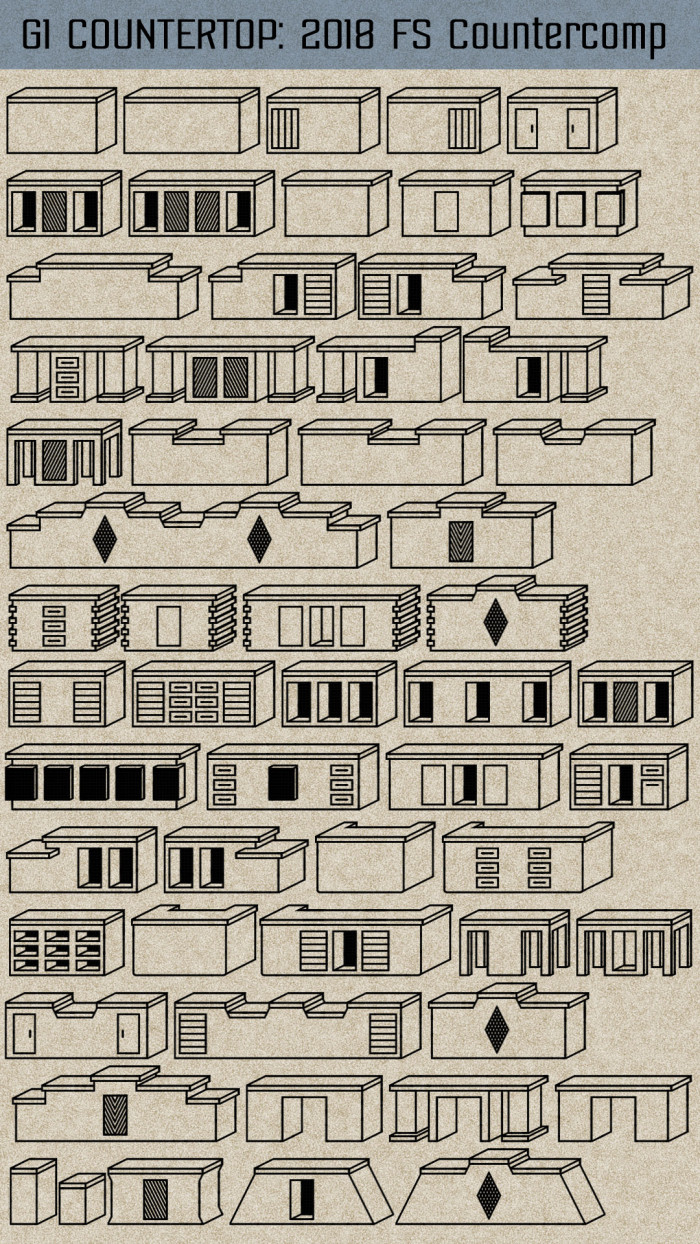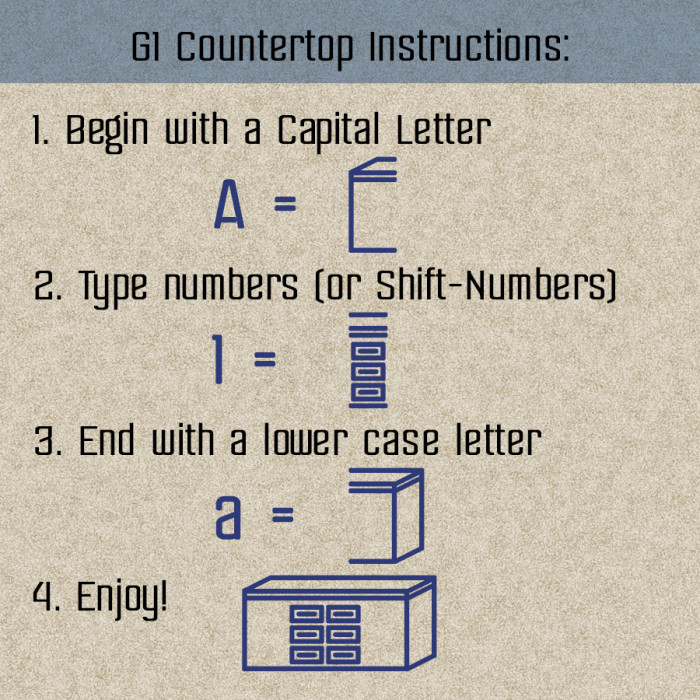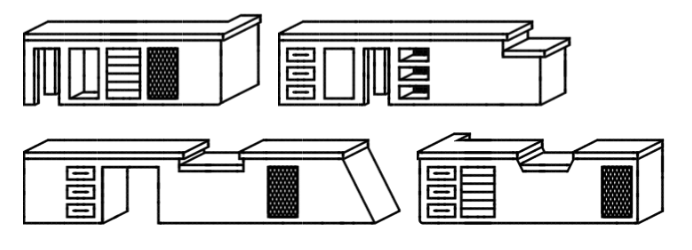
G1 Countertop
This started out as a joke, but it just kept getting more interesting to me as it was developed.
Completed countertops can contain at least two pieces: an uppercase and lowercase letter. The left side of the counter starts with a capital letter, which has a corresponding right side piece in the same lower case letter. Numbers and Shifted Numbers contain center pieces that can be typed in multiples.
The <>, [], and {} make special faux perspective counter pairs. Use sparingly.
Some countertops in houses have different left and right pieces...